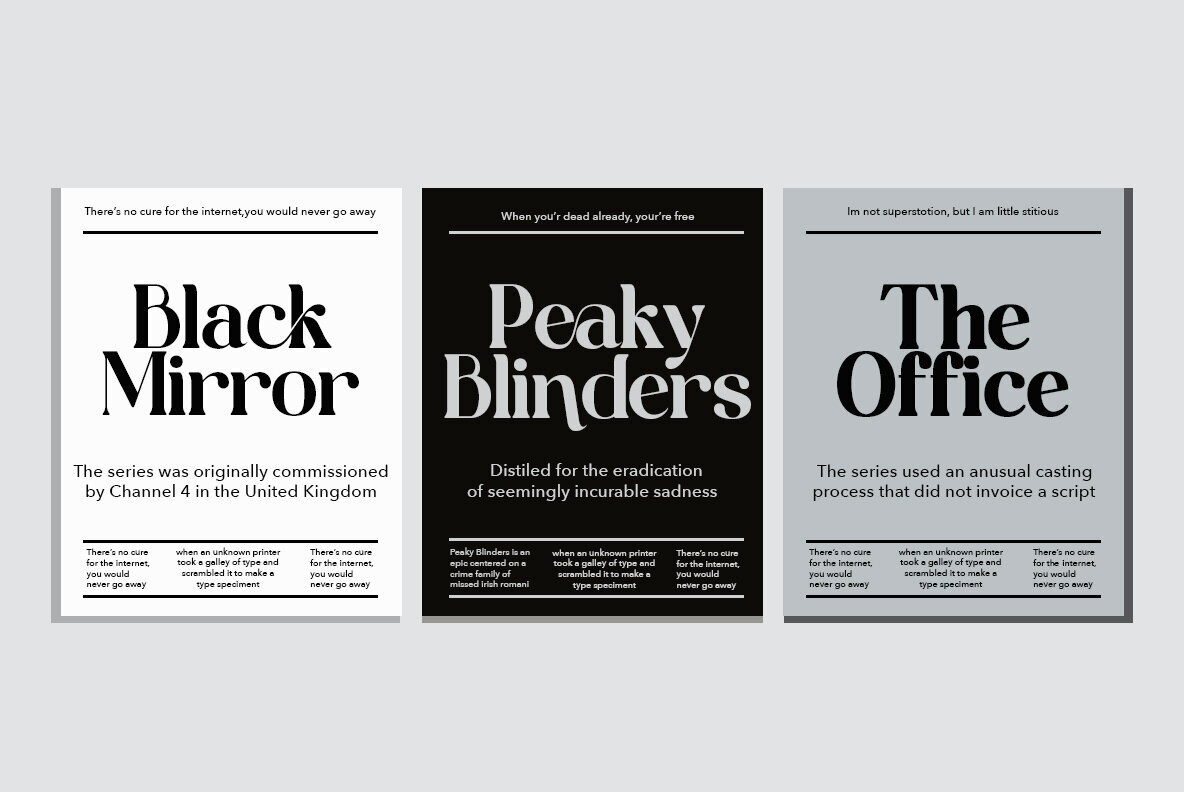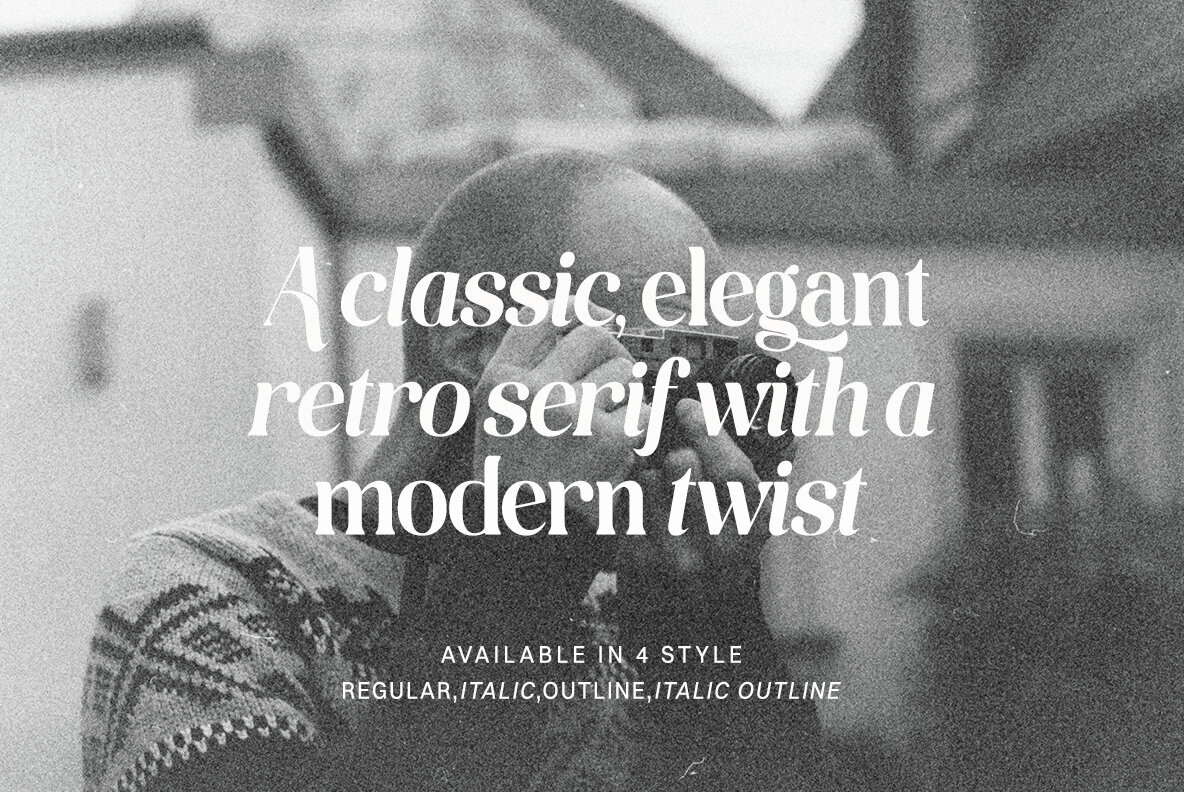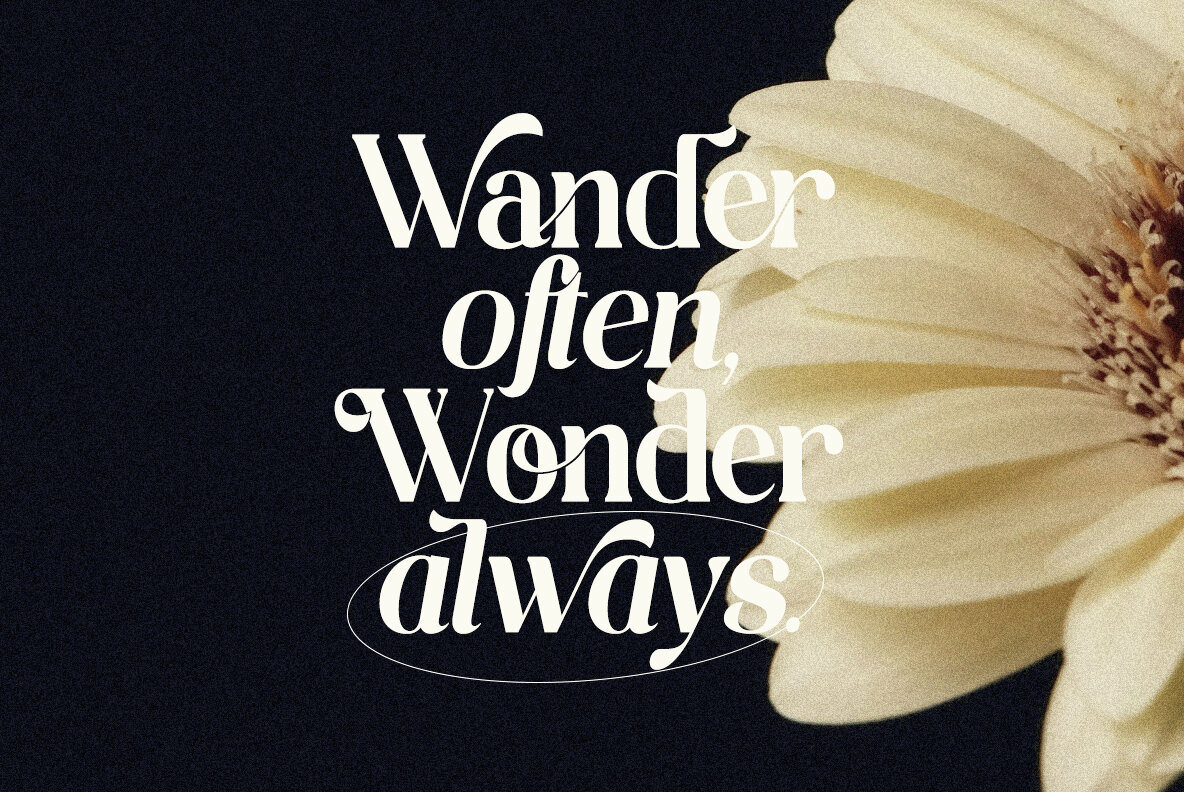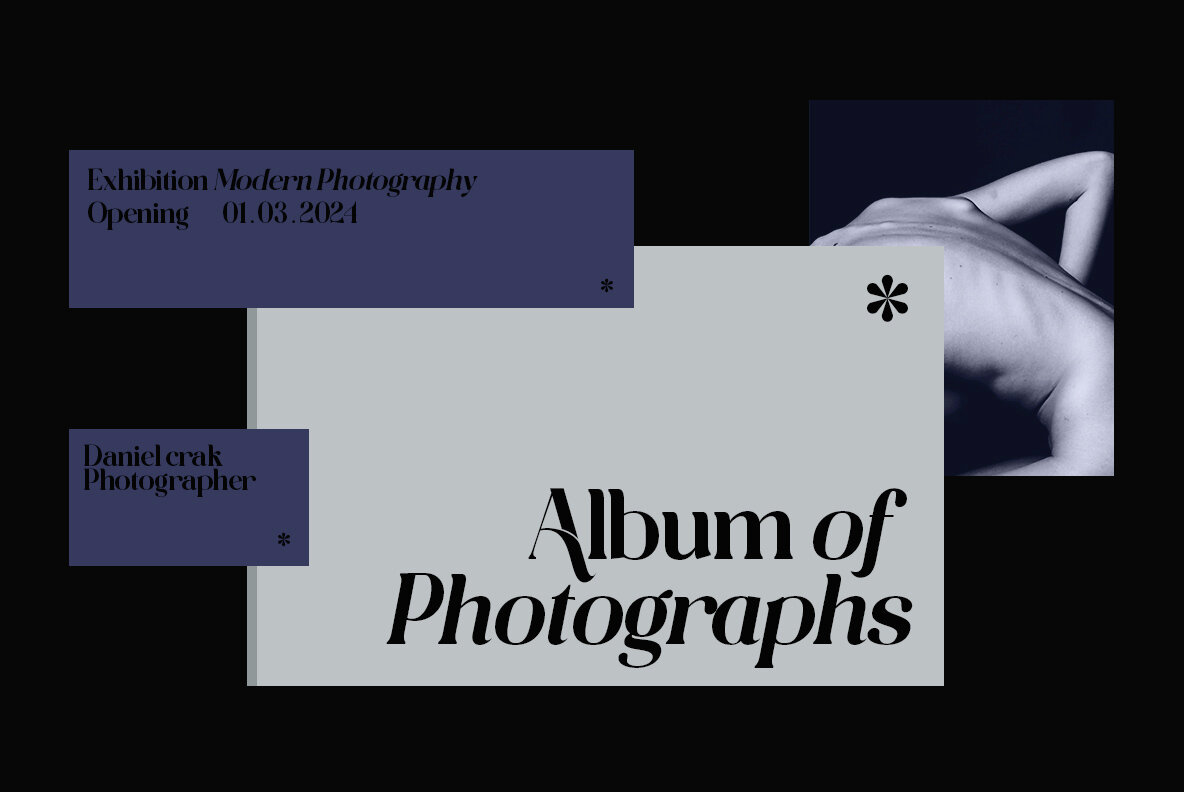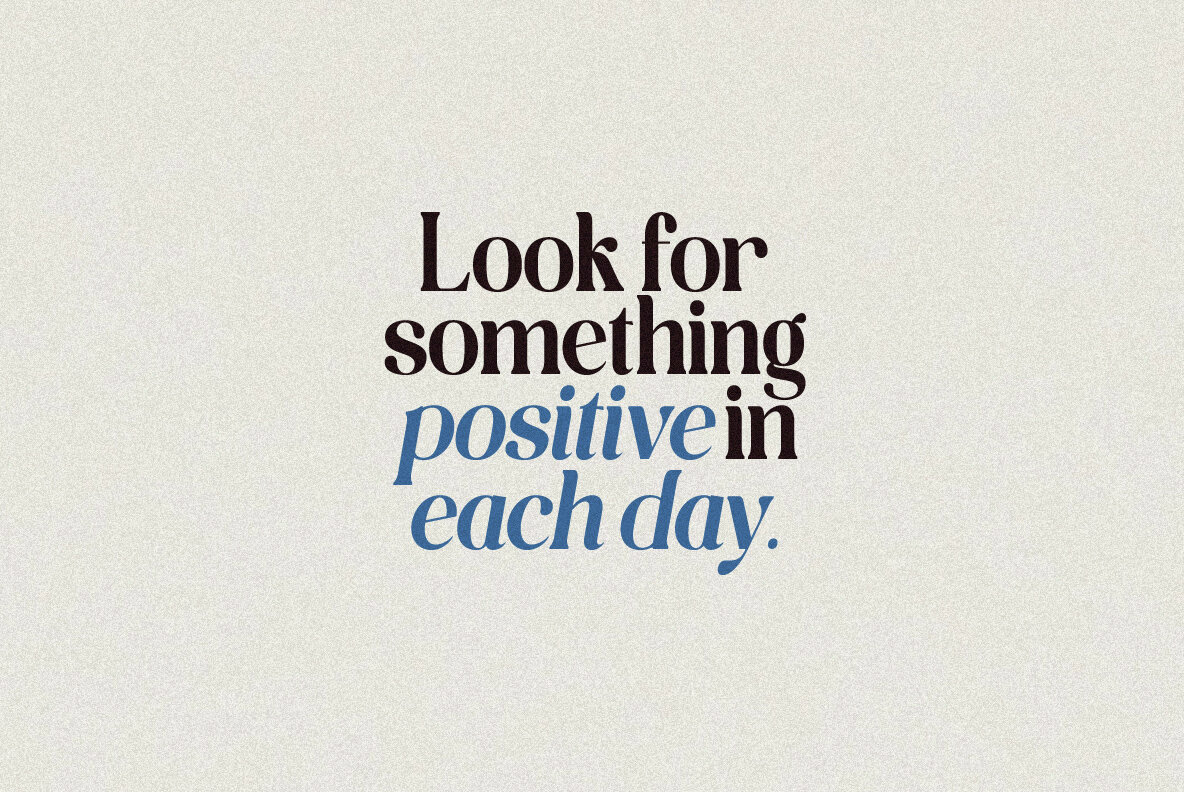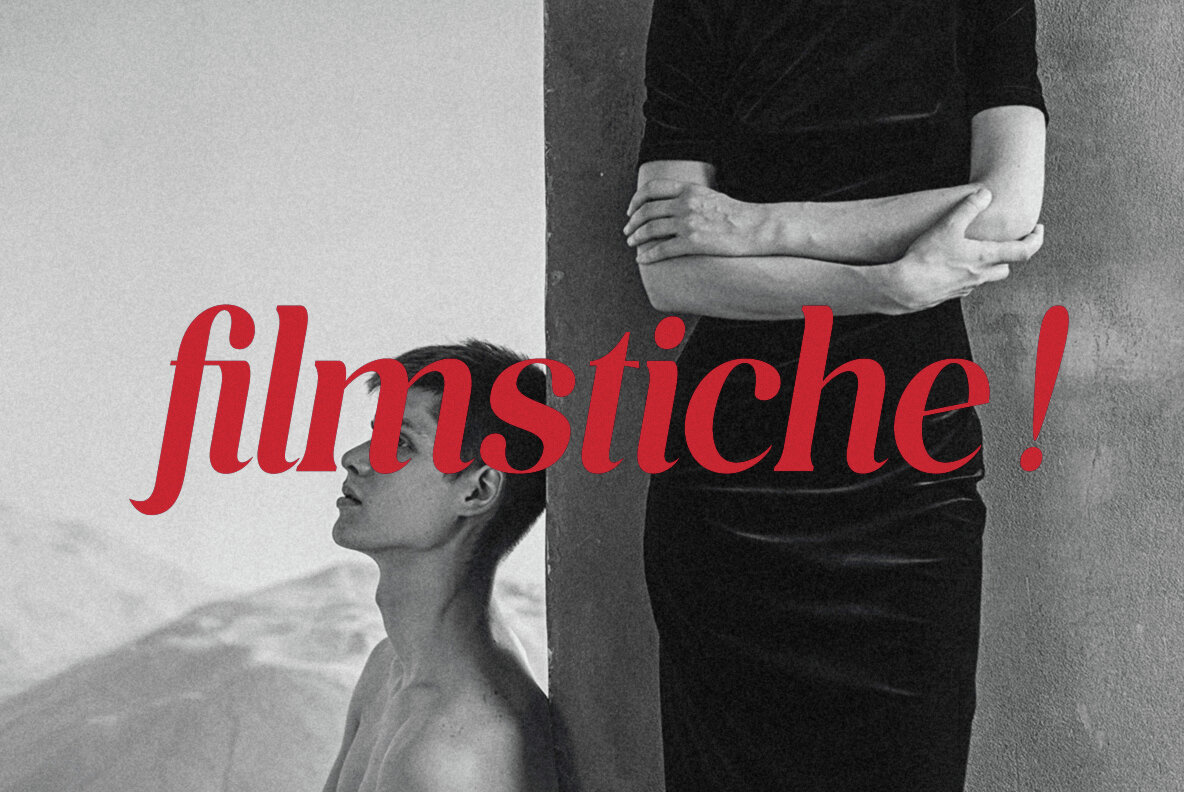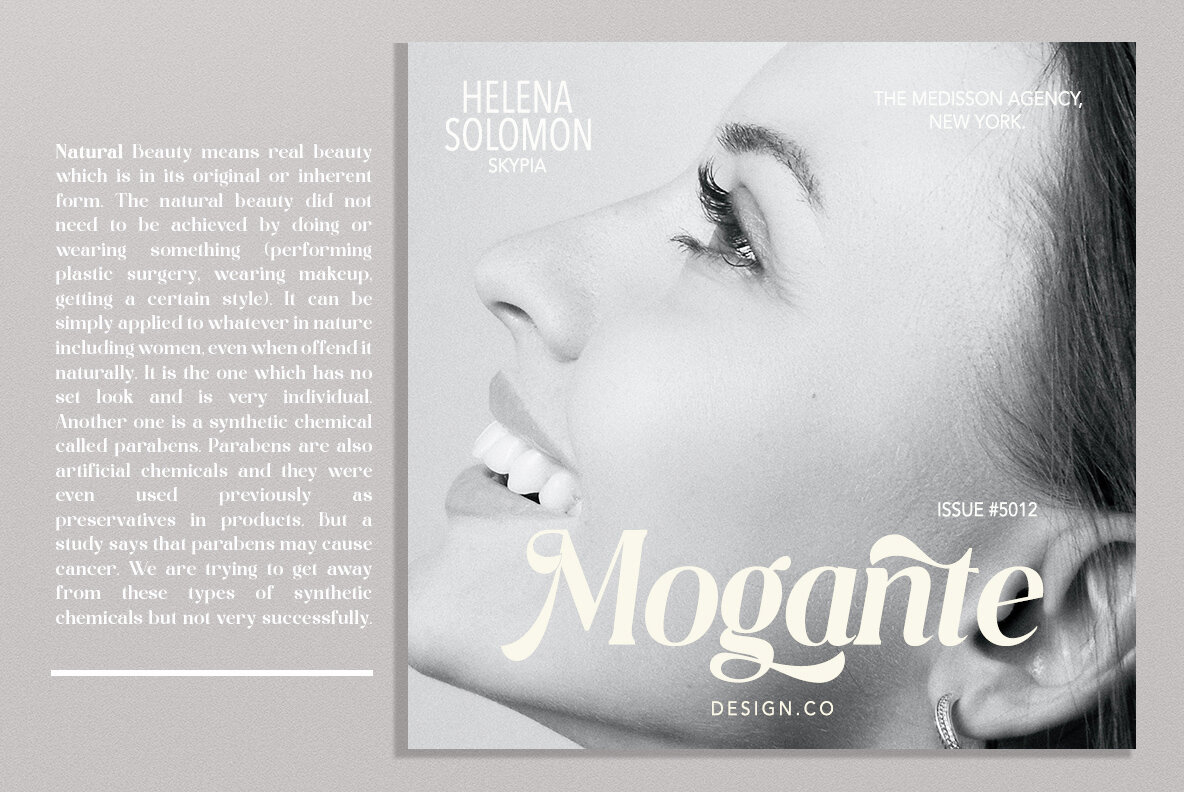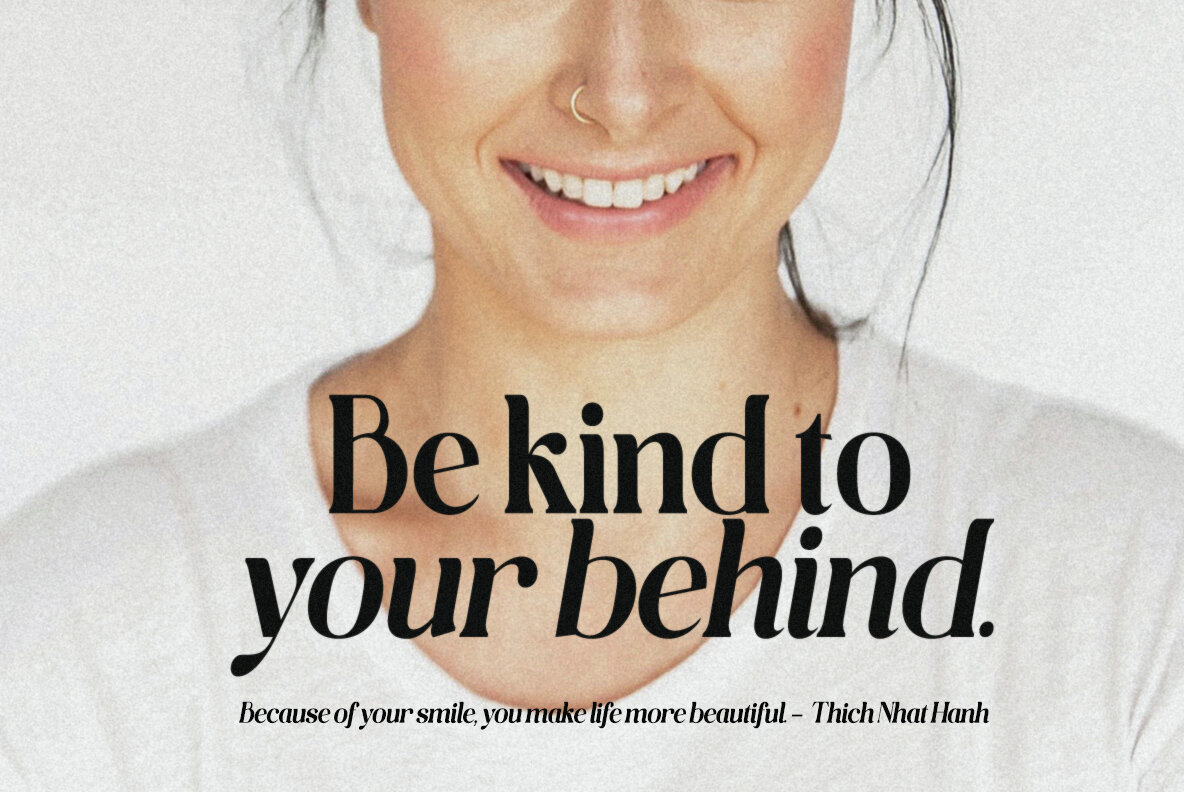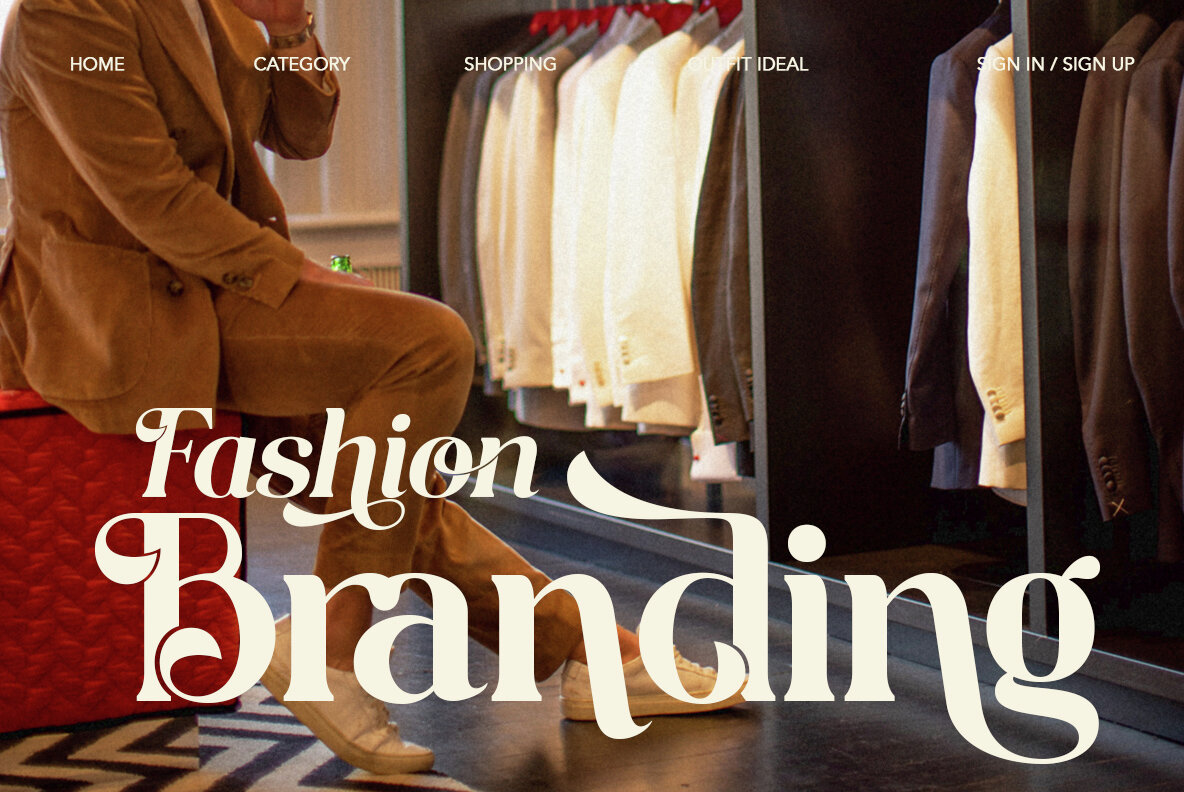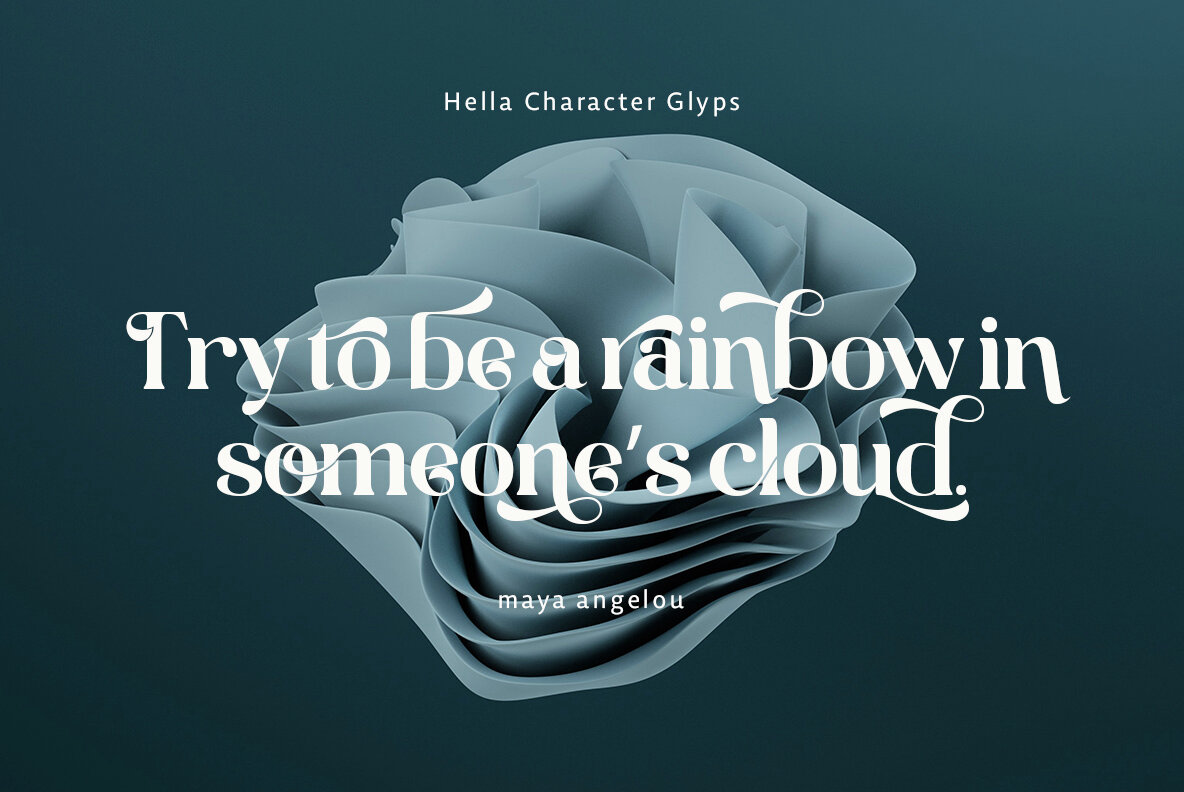
Hella Instegra Font
Hella Instegra Regular
Hella Instegra Italic
Hella Instegra Outline
Hella Instegra Outline Italic
Welcome a fresh vibe to your design projects with Hella Instegra! This stylish font perfectly balances a modern and retro aesthetic, offering a clean and fun look. It's ideal for creating layouts that echo the design trends of the 60s and 70s, bringing a unique charm to your work. Hella Instegra features over 150 unique alternates and 59 ligatures, providing the tools you need to give your logos, business cards, and other projects a distinctive vintage appeal. Complementing its versatile style, the font comes in Italic and Outline versions, making it a perfect choice for vintage-themed designs. Here’s what you can expect from Hella Instegra: A Blend of Modern and Retro